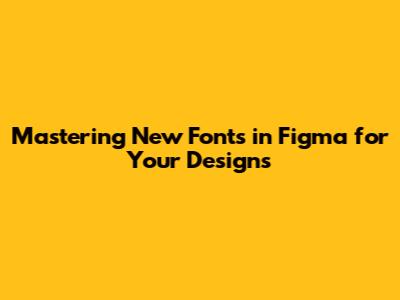
Hey design lovers! So, you're diving into Figma and wondering how to jazz up your projects with some fresh new fonts? You've come to the right place, guys! Figma is an absolute powerhouse for UI/UX design, and one of the coolest things you can do to make your designs pop is by incorporating unique typography. We're talking about going beyond the standard Arial or Times New Roman and really giving your creations a distinct personality. Whether you're a seasoned pro or just starting out, understanding how to effectively manage and implement new fonts in Figma can seriously elevate your game. It's not just about slapping on a fancy font; it's about choosing typefaces that complement your brand, enhance readability, and create a cohesive visual narrative. So, buckle up, because we're about to explore the wonderful world of typography within Figma, from finding those perfect fonts to seamlessly integrating them into your workflow. Let's get this typography party started!
Finding the Perfect New Fonts for Your Figma Projects
Alright, let's talk about the hunt for those perfect new fonts to supercharge your Figma designs. This is where the real fun begins, right? It’s like being a kid in a candy store, but instead of sweets, you’ve got an endless array of typographic treasures to choose from. But where do you even start looking? The internet is flooded with font resources, and while that's amazing, it can also be a bit overwhelming. My go-to place is usually Google Fonts. Why? Because it's free, offers a massive collection of high-quality, web-safe fonts, and integrates beautifully with Figma. You can browse by category, popularity, or even by font properties like serif, sans-serif, display, and handwriting. Don't sleep on Adobe Fonts either, especially if you're already in the Adobe ecosystem. It's a subscription service, but the library is phenomenal, and the integration is seamless. For those truly unique, artistic vibes, you might want to explore marketplaces like MyFonts or Fontspring. These platforms host a wider variety of premium fonts, often from independent foundries, which can give your designs that extra edge. When you’re browsing, always keep your project in mind. Ask yourself: What’s the overall mood? Who is the target audience? Does this font convey the right message? A playful script might be awesome for a children's book app, but probably not for a serious financial platform. Look for fonts that have a good range of weights (light, regular, bold) and styles (italic). This versatility will be a lifesaver later when you’re trying to create typographic hierarchy within your designs. Remember, the goal isn't just to find a font that looks cool in isolation, but one that works harmoniously with your layout, colors, and imagery. So, take your time, experiment, and trust your gut. The right font is out there, waiting to be discovered!
Leveraging Figma's Font Features for Better Typography
Now that you’ve got your new fonts loaded into Figma, let’s talk about how to use them like a total pro. Figma isn't just a font repository; it's packed with features that help you wield typography like a finely tuned instrument. First off, let's chat about Styles. Think of text styles as your reusable typographic DNA. Instead of painstakingly applying the same font, size, weight, and line height to every single heading or paragraph, you can create a style. Go to your text layer, format it exactly how you want it, then click the four-dot icon in the text properties panel and select 'Create style'. Give it a clear name (like 'H1 - Bold', 'Body - Regular', 'Caption - Italic') and voilà! Now, whenever you need that specific typographic treatment, you just select the text, click the four-dot icon again, and apply your saved style. This is HUGE for consistency across your designs and makes updates a breeze. Need to change all your H1s? Just update the H1 style, and it reflects everywhere. Seriously, guys, use styles! Another killer feature is Auto Layout. While not directly a font feature, it works hand-in-hand with typography. When you apply Auto Layout to frames containing text, it handles resizing and spacing beautifully. This means your text won't get cut off, and your layouts will adapt gracefully as content changes. Combine Auto Layout with text styles, and you've got a super-powered system for creating responsive and maintainable designs. Don't forget about text properties themselves! Figma gives you granular control over font weight, size, line height, letter spacing, and even paragraph indentation. Experimenting with these subtle adjustments can make a world of difference in readability and visual appeal. Pay close attention to line height (leading) and letter spacing (tracking) – they are critical for legibility, especially with longer blocks of text or when using display fonts. Finally, explore plugins. While Figma's native features are robust, there are community plugins that can help with advanced typographic tasks, like generating placeholder text with specific font styles or checking for text contrast issues. So dive in, explore these features, and make your typography sing!
Conclusion: Elevate Your Designs with Smart Font Choices
So there you have it, folks! We’ve journeyed through the exciting process of finding, installing, and effectively using new fonts in Figma. It’s clear that typography is so much more than just selecting a pretty typeface; it’s a fundamental element of design that dictates tone, enhances usability, and builds brand identity. By leveraging Figma's intuitive features like text styles and Auto Layout, combined with a thoughtful approach to font selection, you can truly elevate your design work from good to absolutely stunning. Remember the key takeaways: discover diverse font resources, ensure proper installation and system recognition, master Figma's typographic tools like styles for consistency, and don't shy away from troubleshooting when issues arise. The right font, used wisely, can make all the difference. It's the difference between a design that's easily understood and remembered, and one that gets lost in the noise. So, go forth, experiment with those gorgeous new fonts, and make your next Figma project your most typographically impressive one yet! Happy designing, everyone!